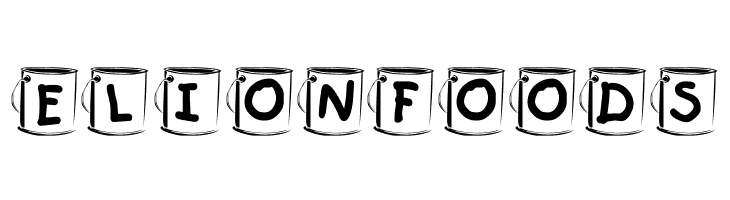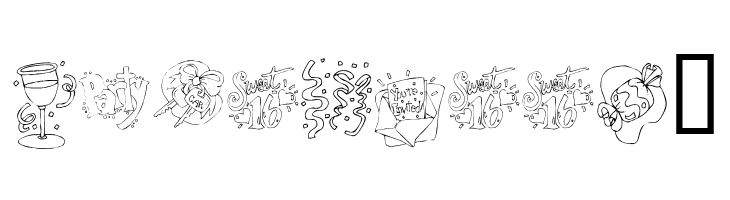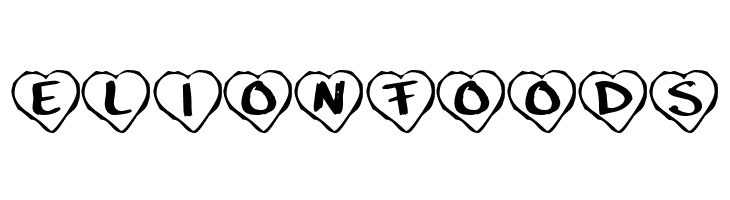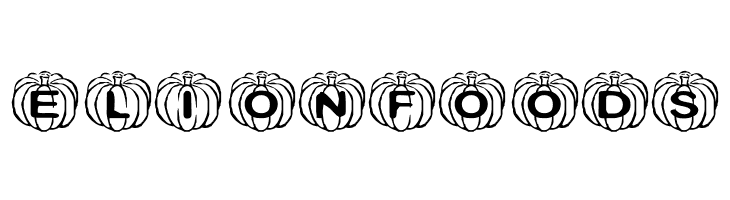
A whimsical font with letters inside paint cans, perfect for creative projects.
A playful font with each letter inside a heart shape, perfect for romantic themes.
A decorative dingbat font with playful, festive icons for celebrations.
A decorative font featuring Jewish cultural symbols like menorahs and Stars of David.
A decorative font featuring Jewish cultural symbols like the Star of David and menorahs.
A playful, handwritten font with a quirky and dynamic style.
A playful, handwritten font with dynamic, irregular strokes.
A playful font with letters encased in pumpkin shapes, perfect for autumn themes.